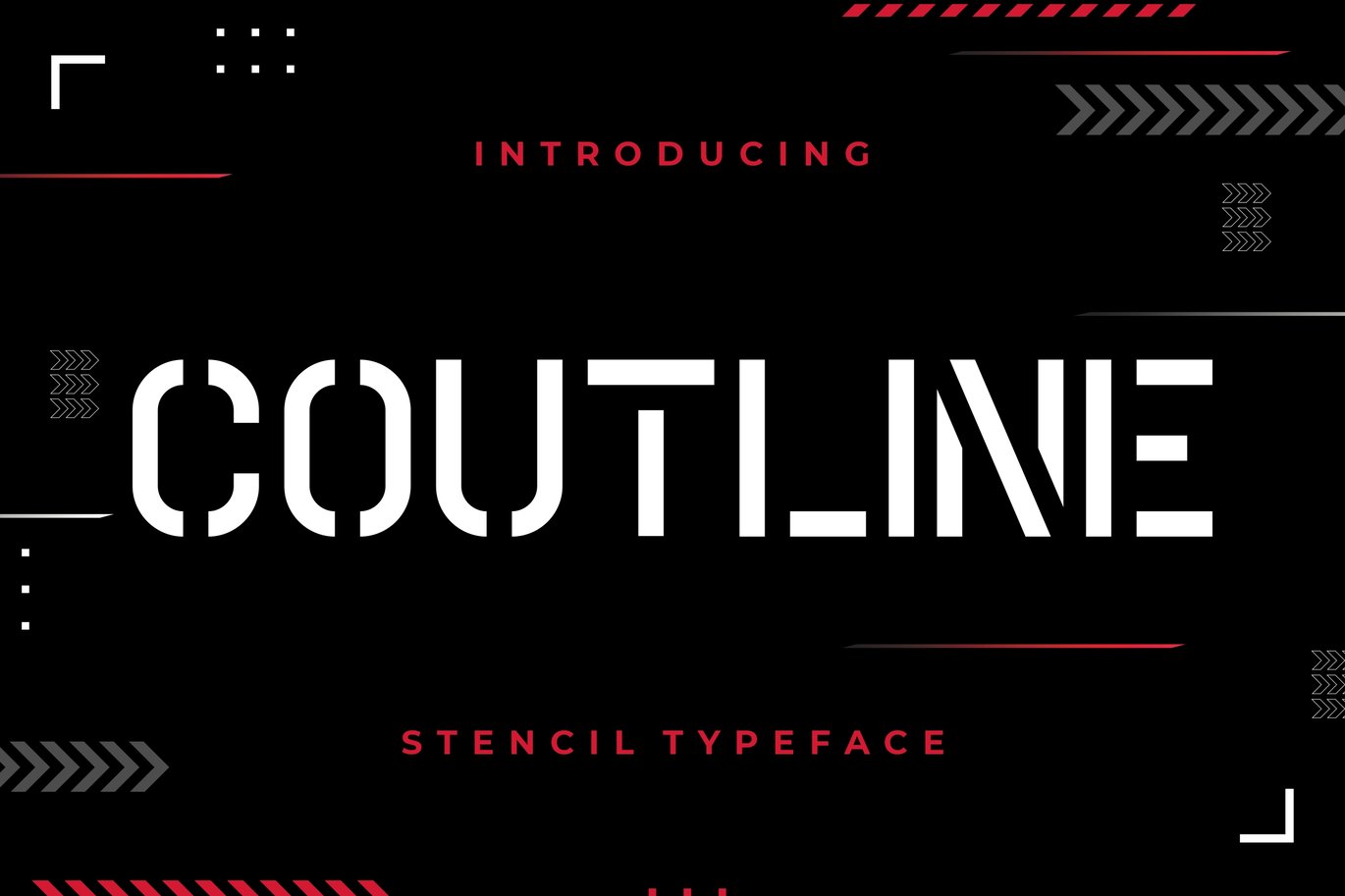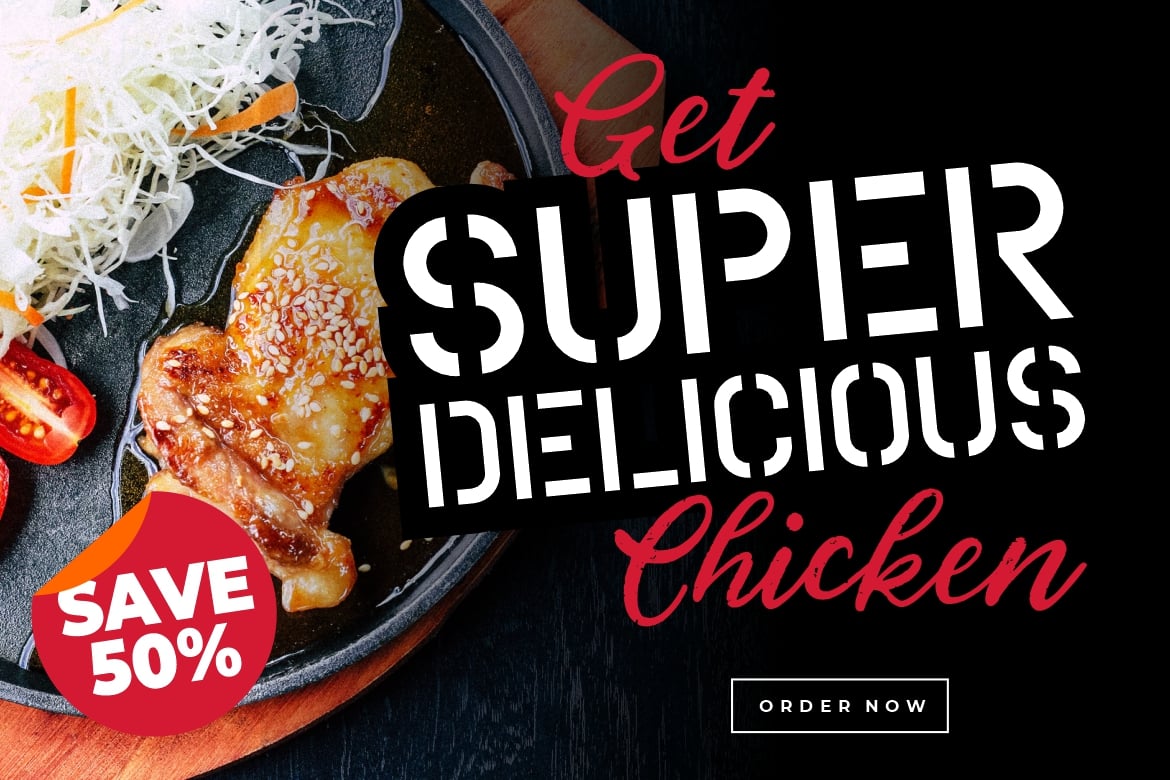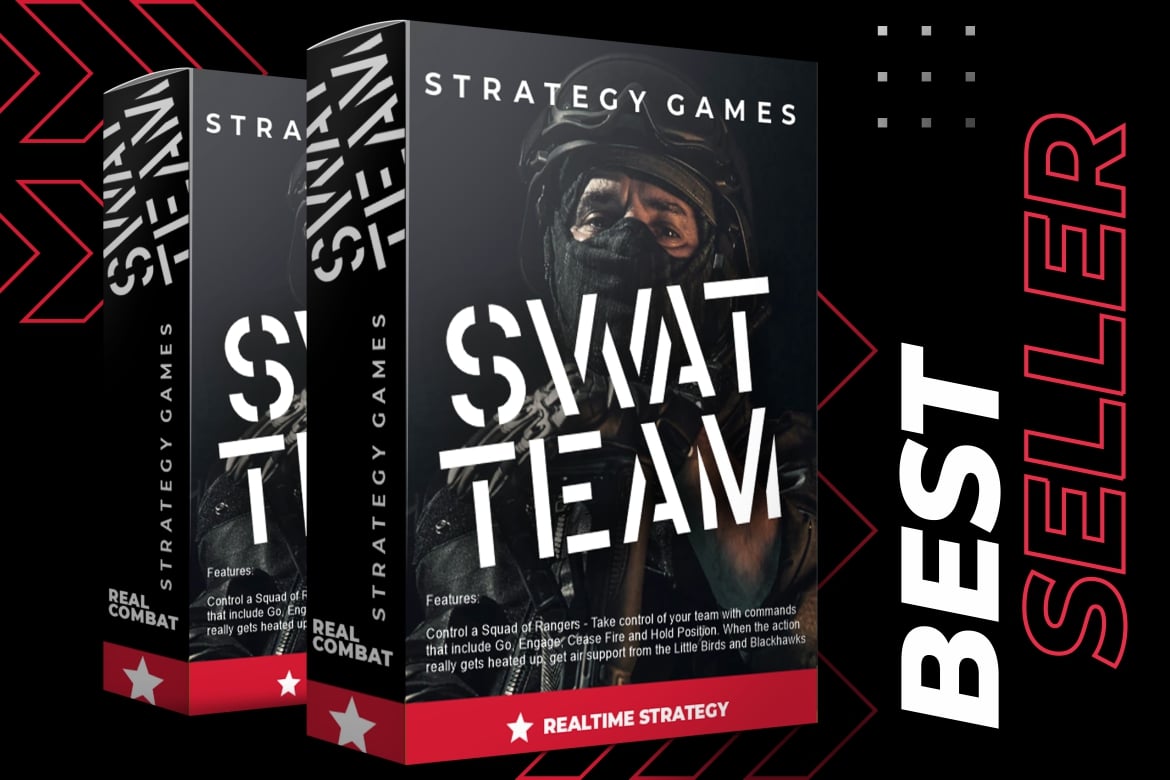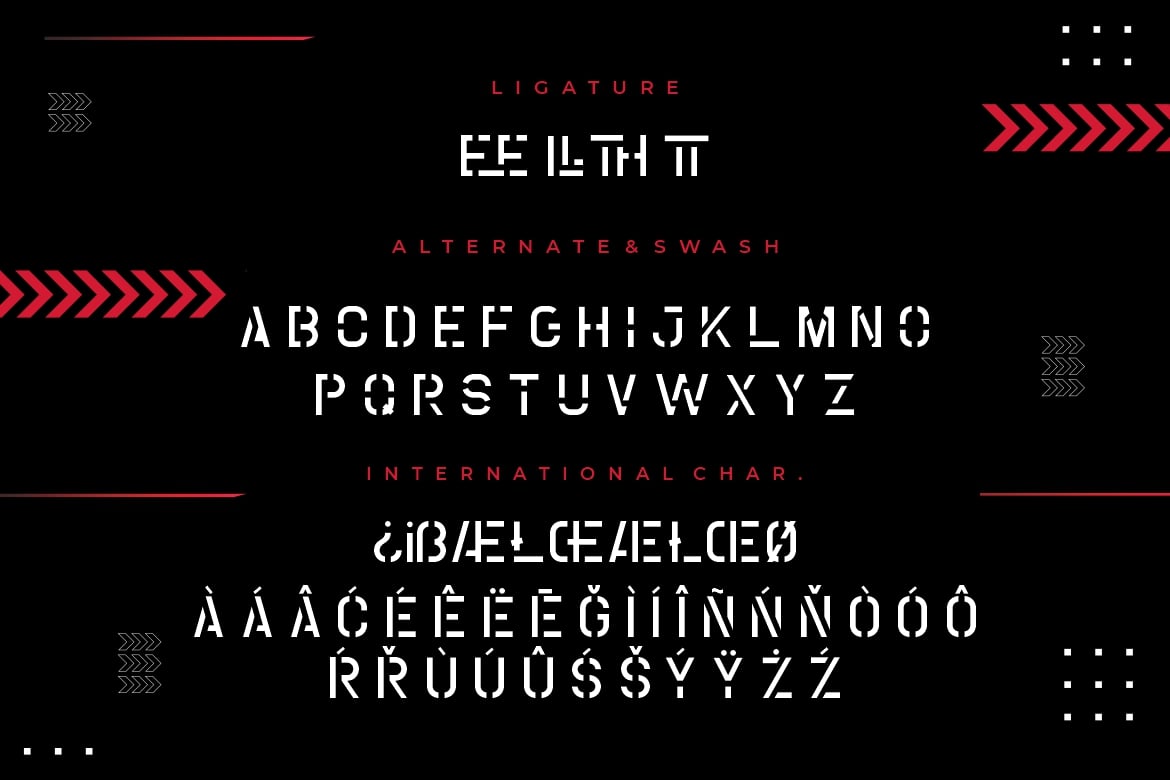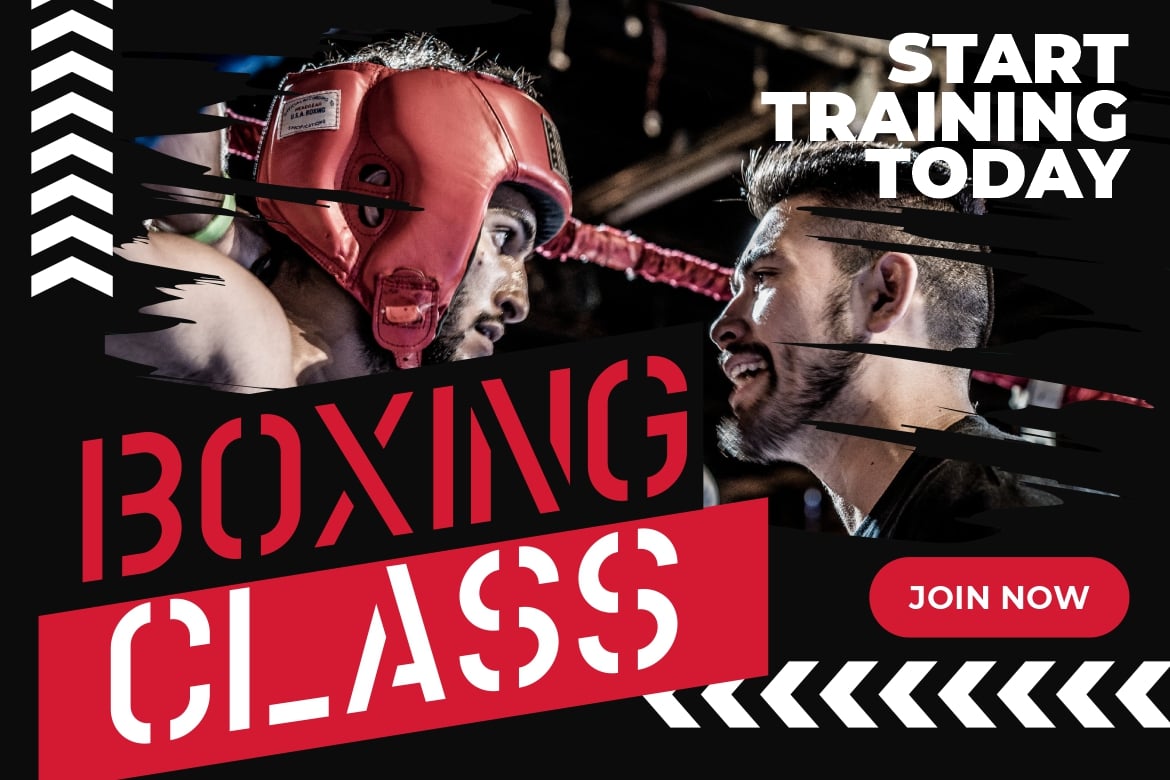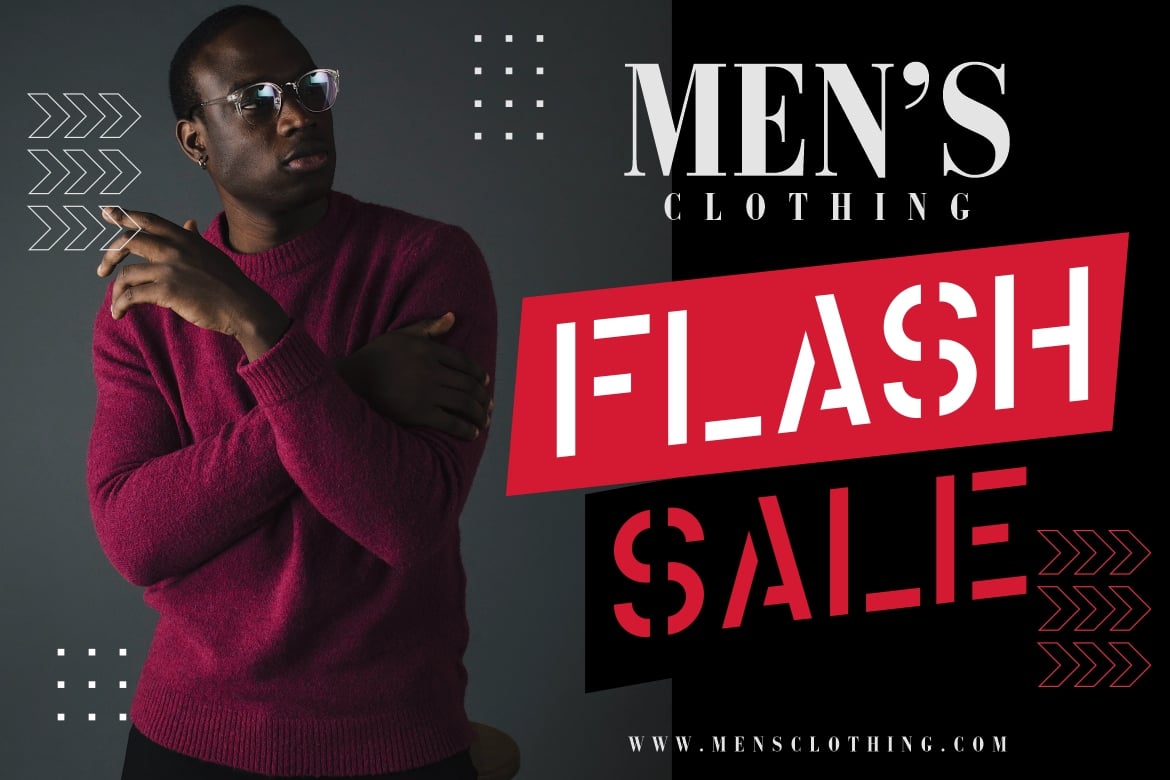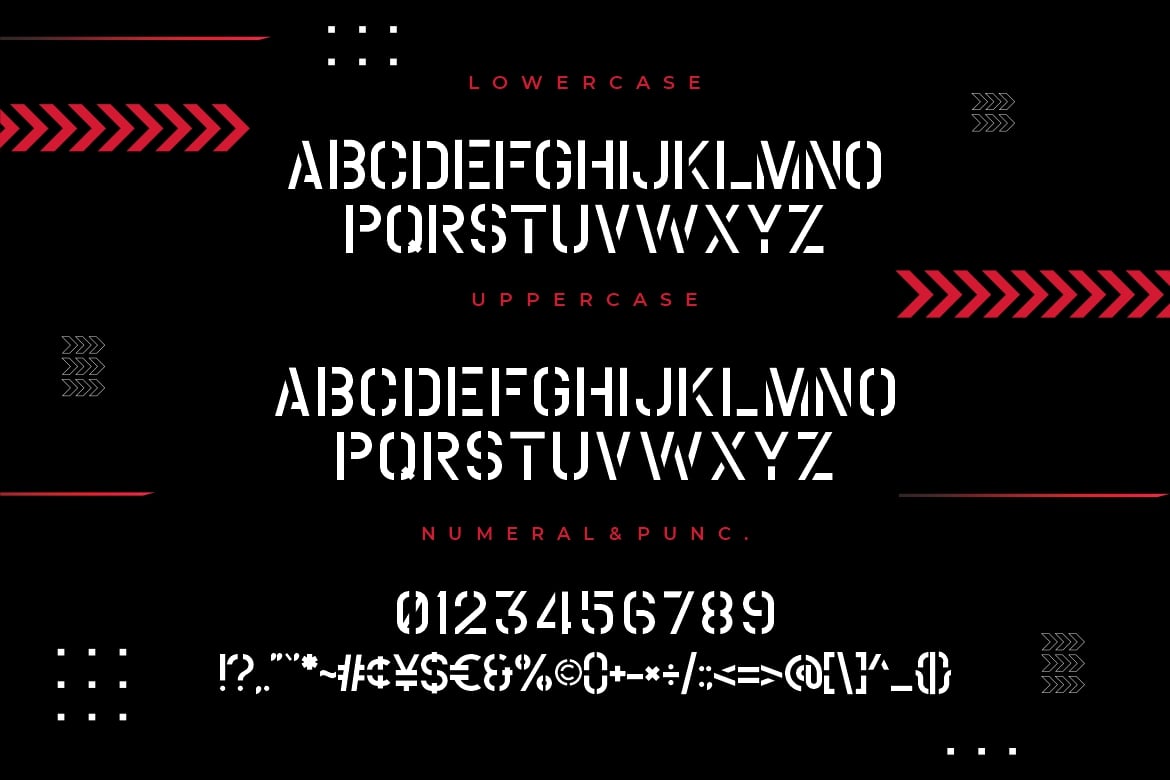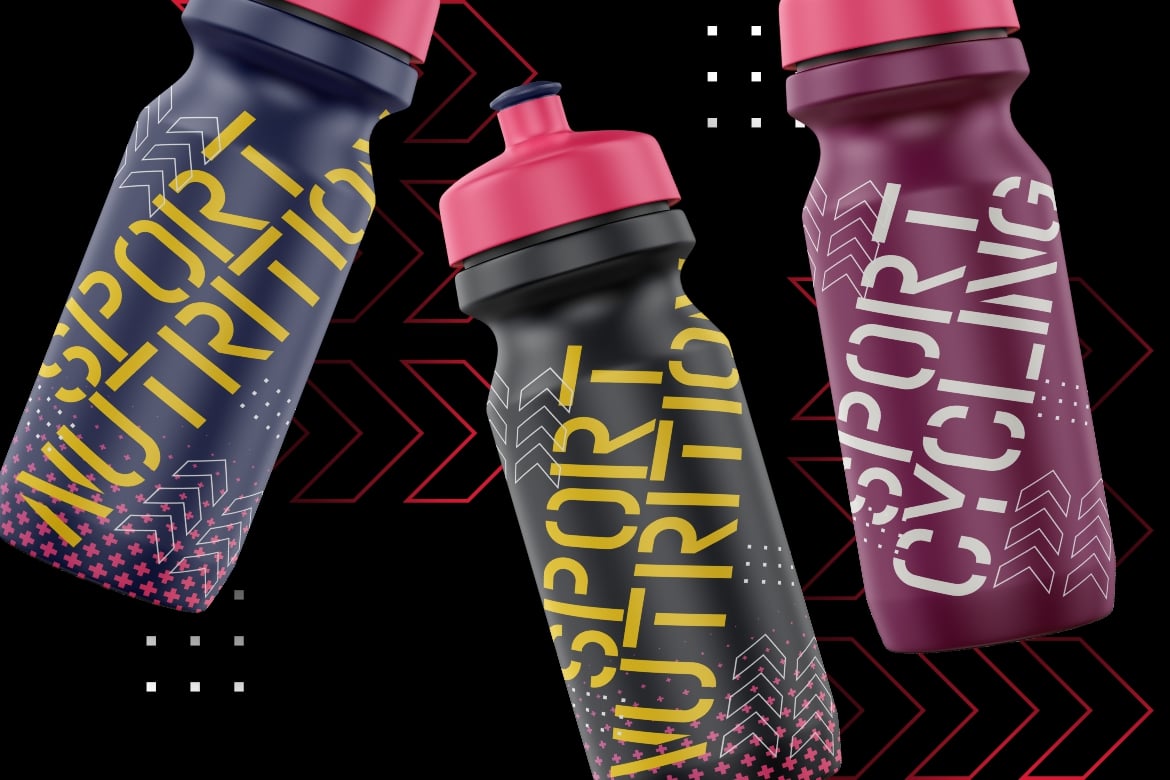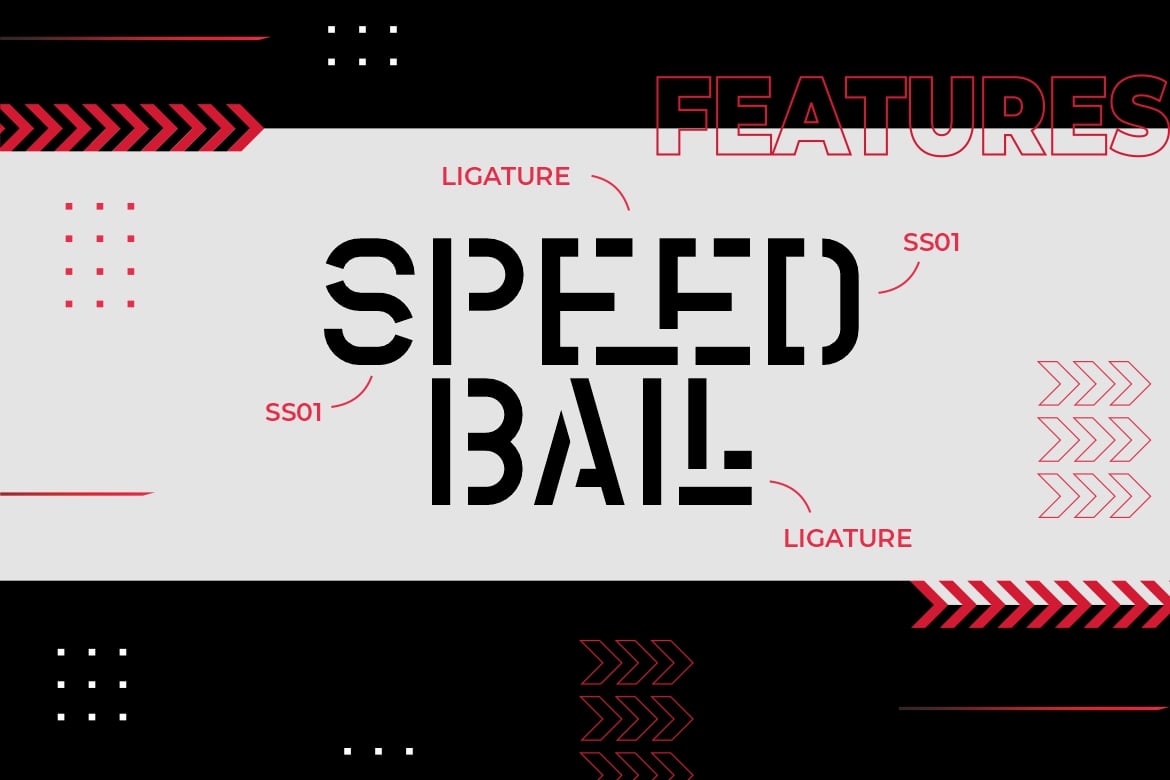
Coutline Stencil Typeface
Coutline is an all caps stencil display font Sans-Serif that inspired by military design and urban graffiti.
- Ton of glyphs
- Ligature & Alternate